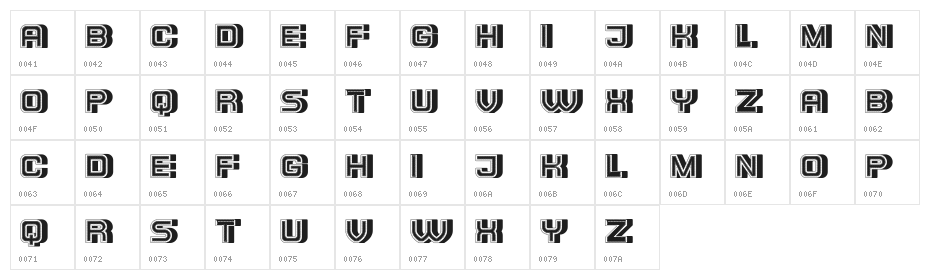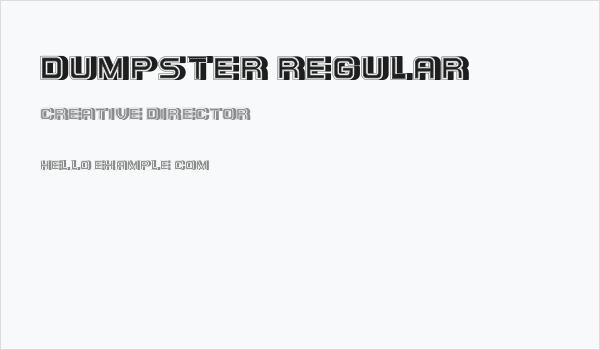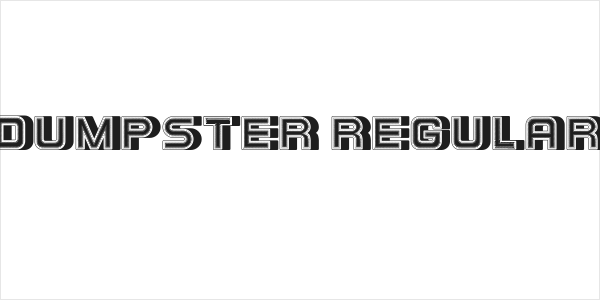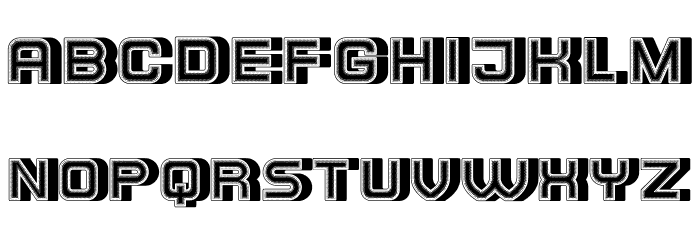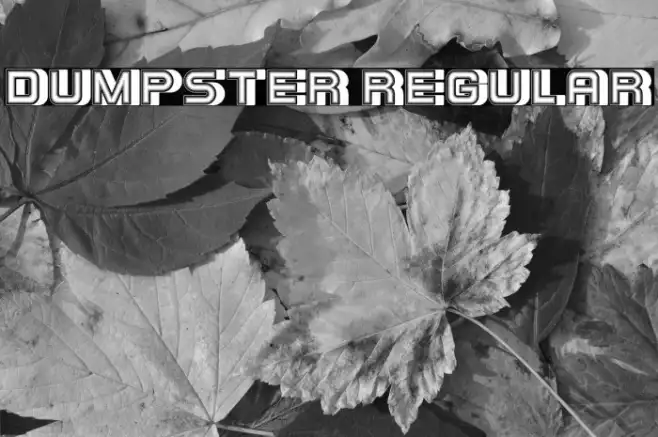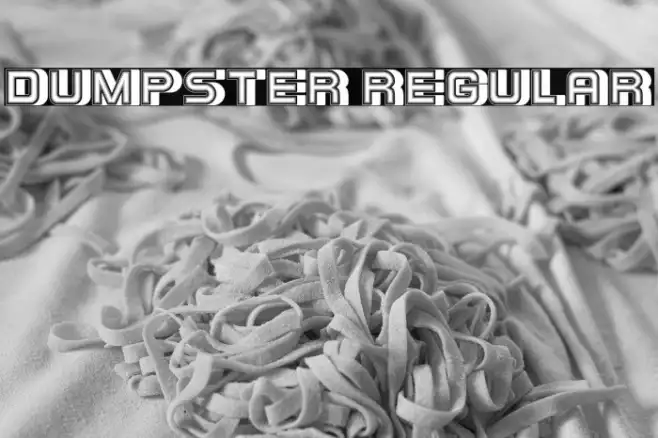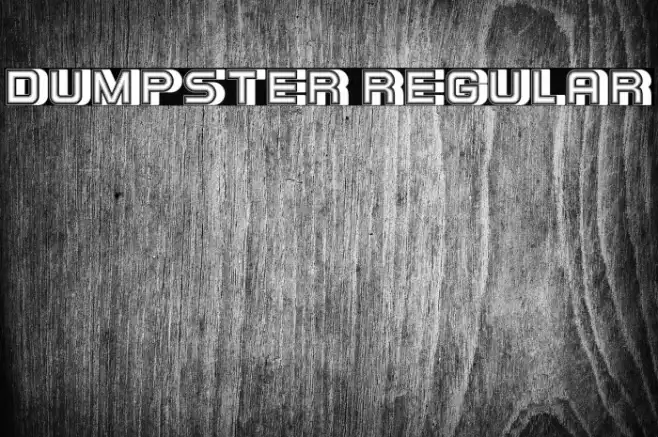
Dumpster Regular Font
Dumpster Regular Description
This font features a bold, industrial design with a strong, geometric structure. The characters are outlined with a thick, black border, giving them a three-dimensional appearance. The interior of each letter is filled with a pattern of horizontal lines, adding texture and depth. The overall style is reminiscent of urban street art or graffiti, making it ideal for projects that require a modern, edgy look. The uppercase letters are uniform in height, while the spacing between characters is tight, enhancing the compact and impactful nature of the font.
| Proposed Projects | Ideal for urban-themed posters, streetwear branding, album covers, and graffiti-inspired designs. |